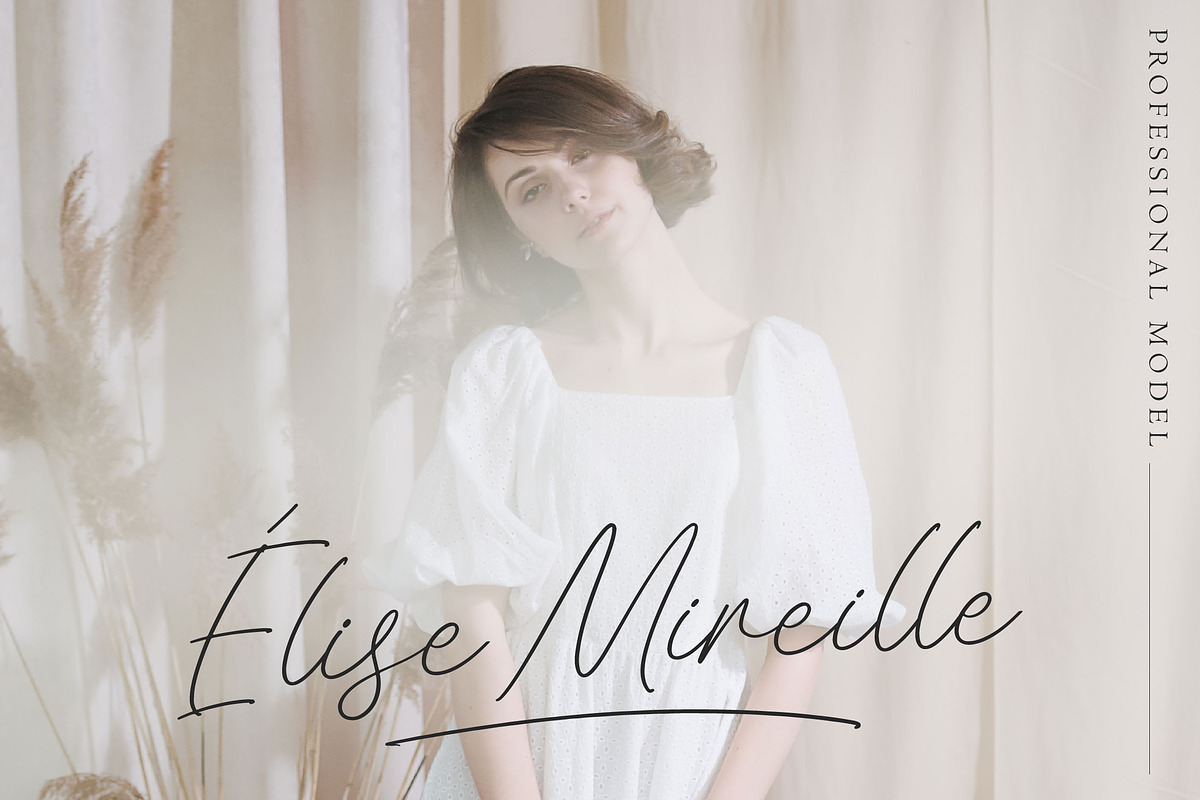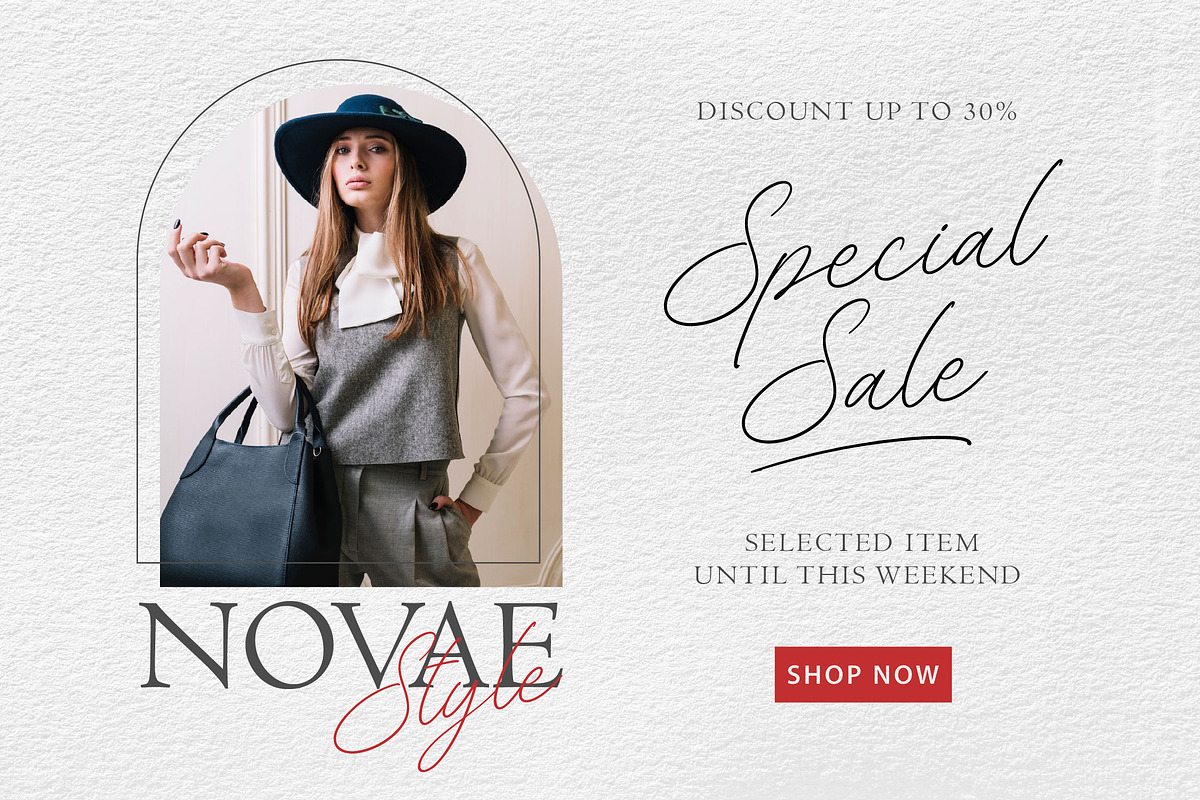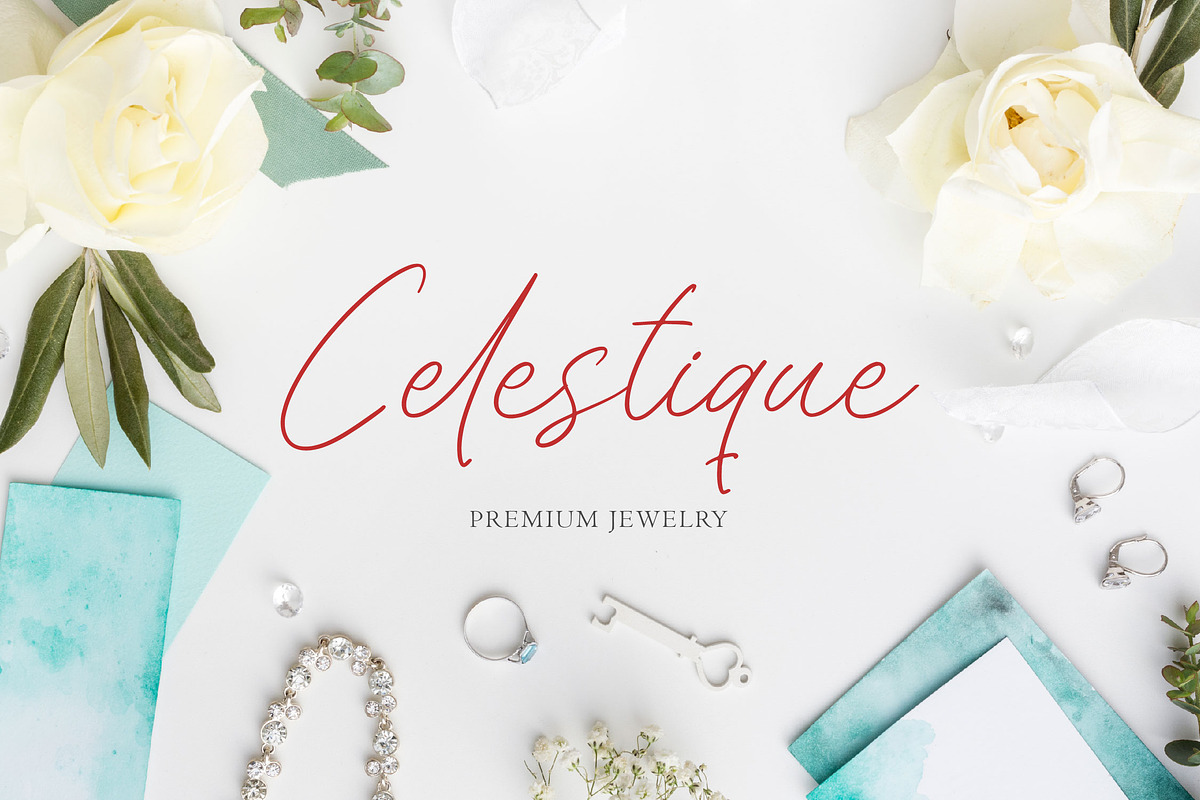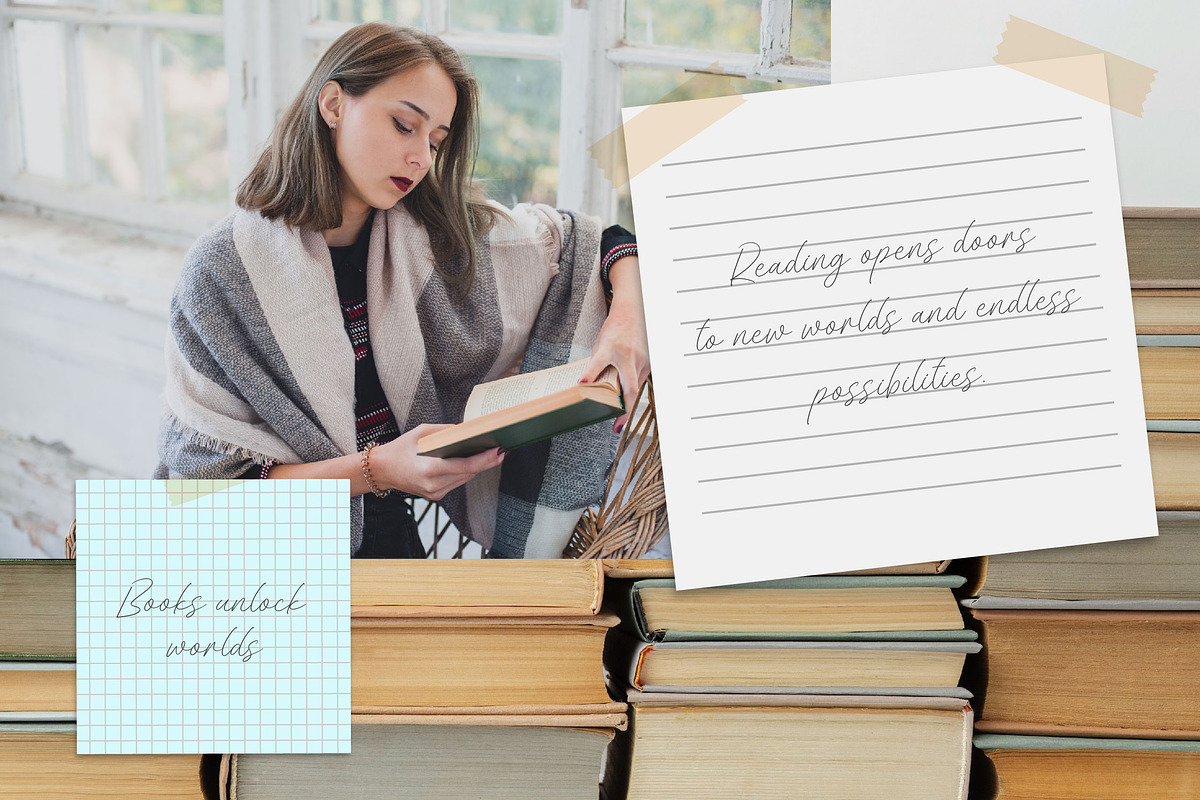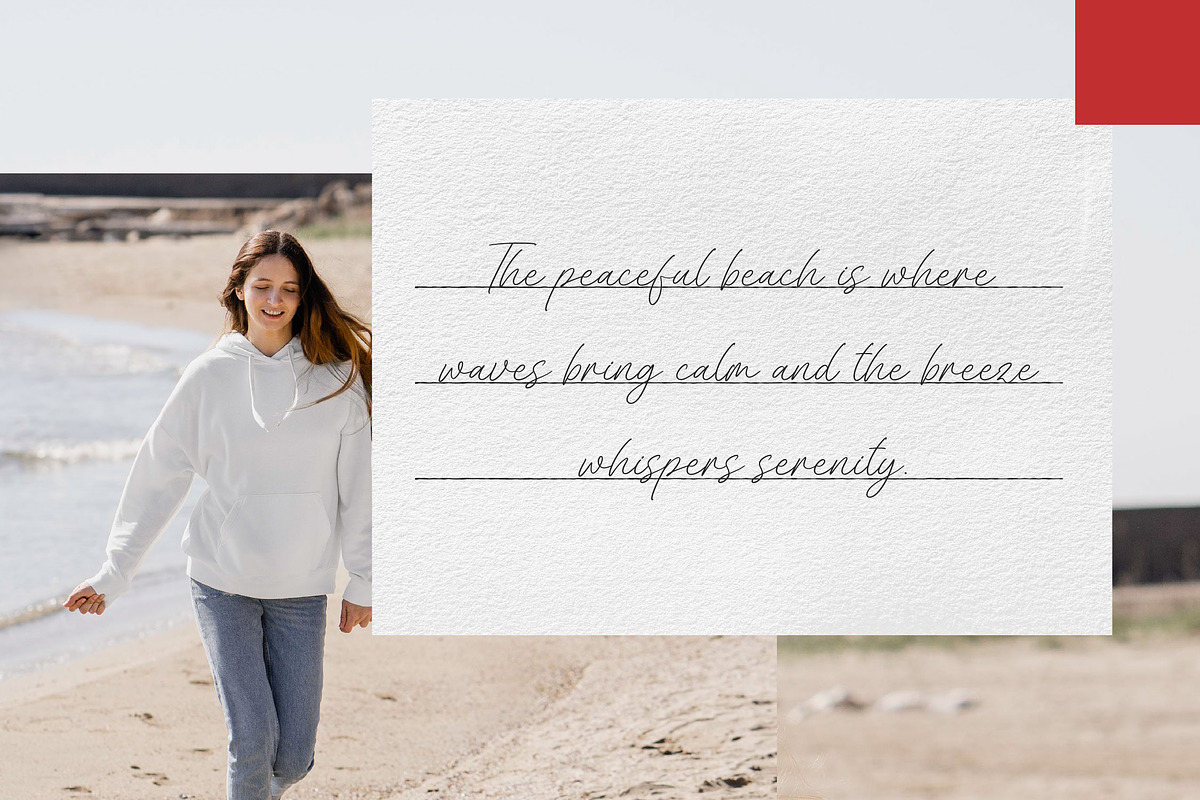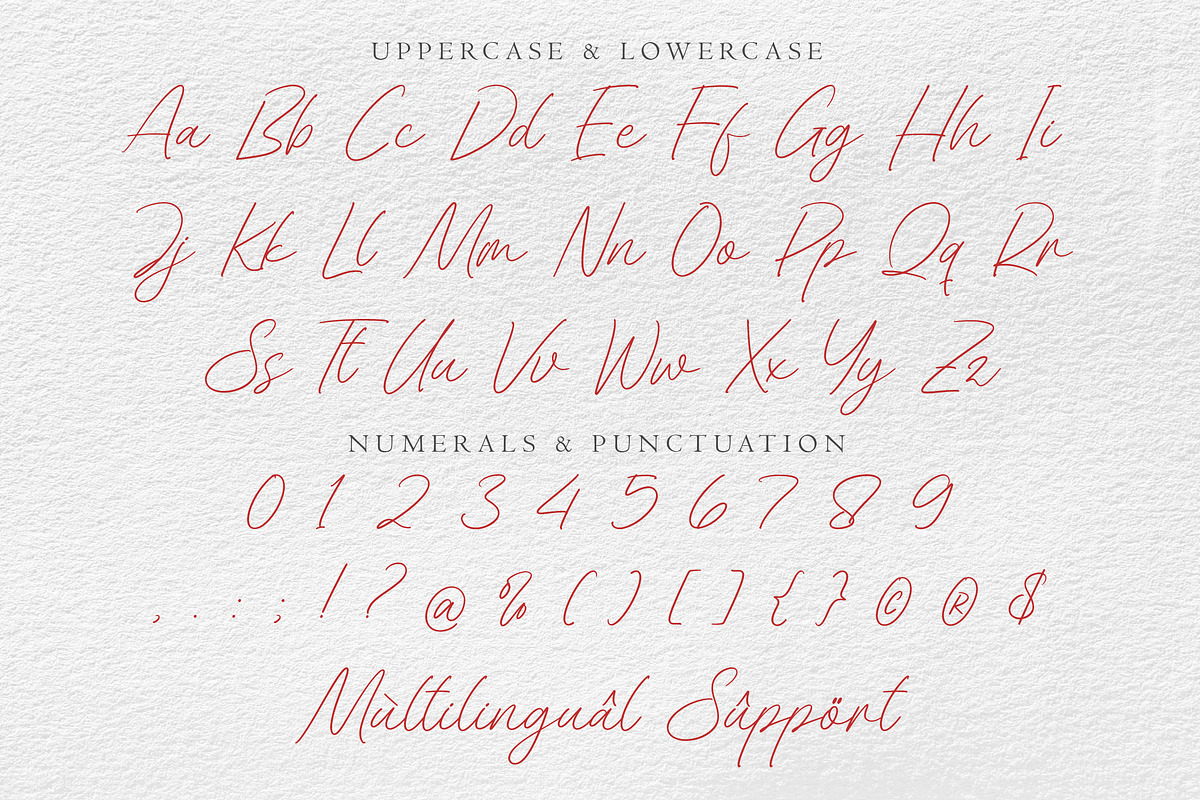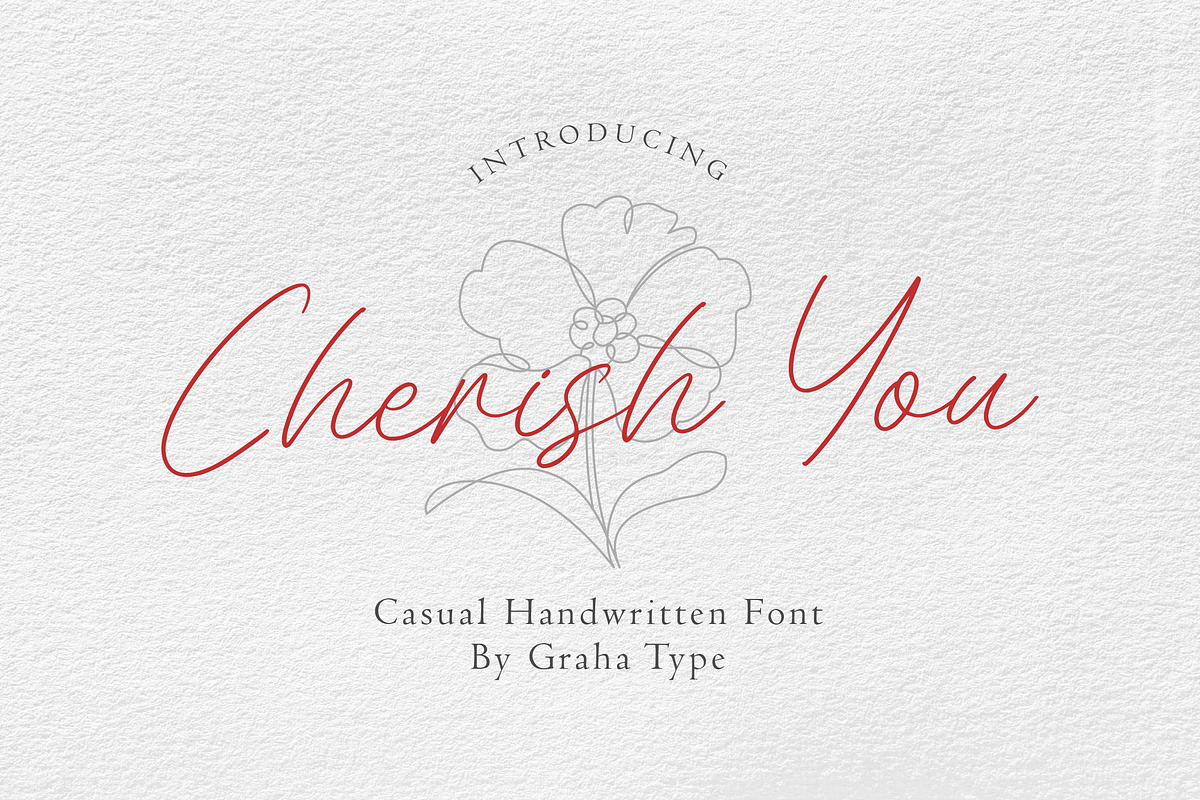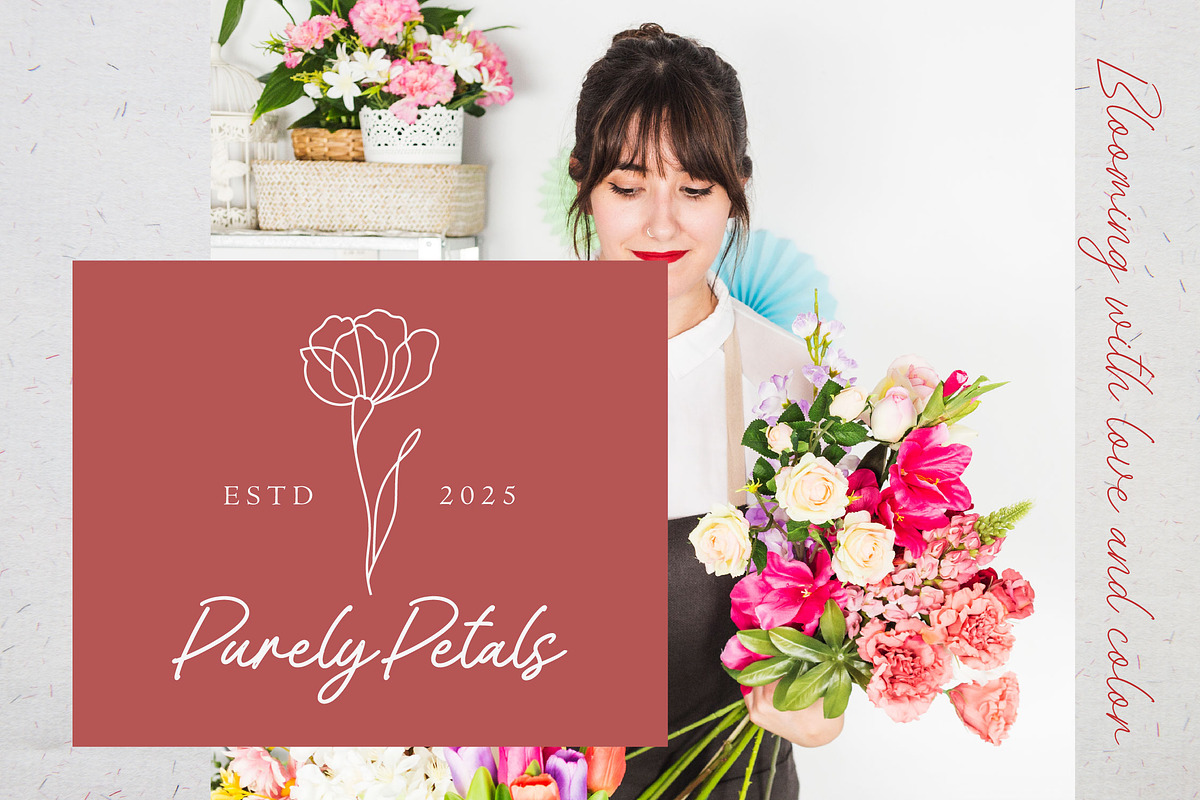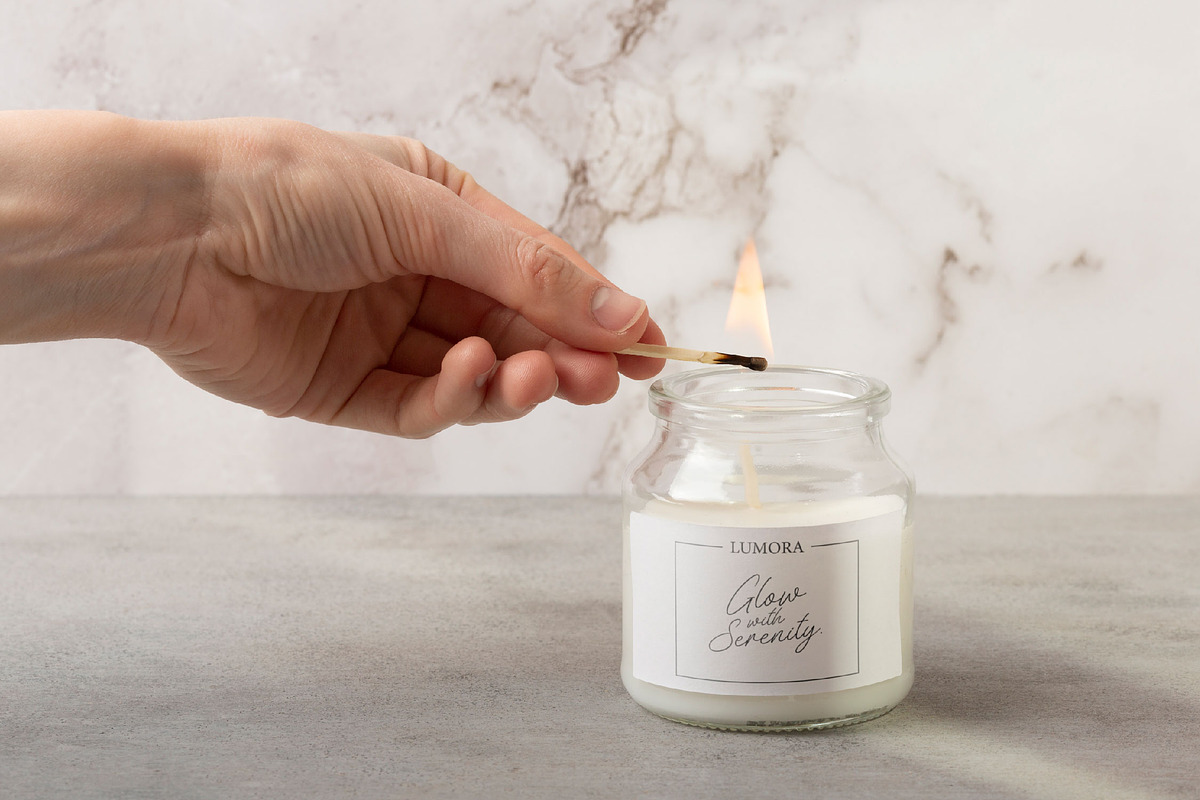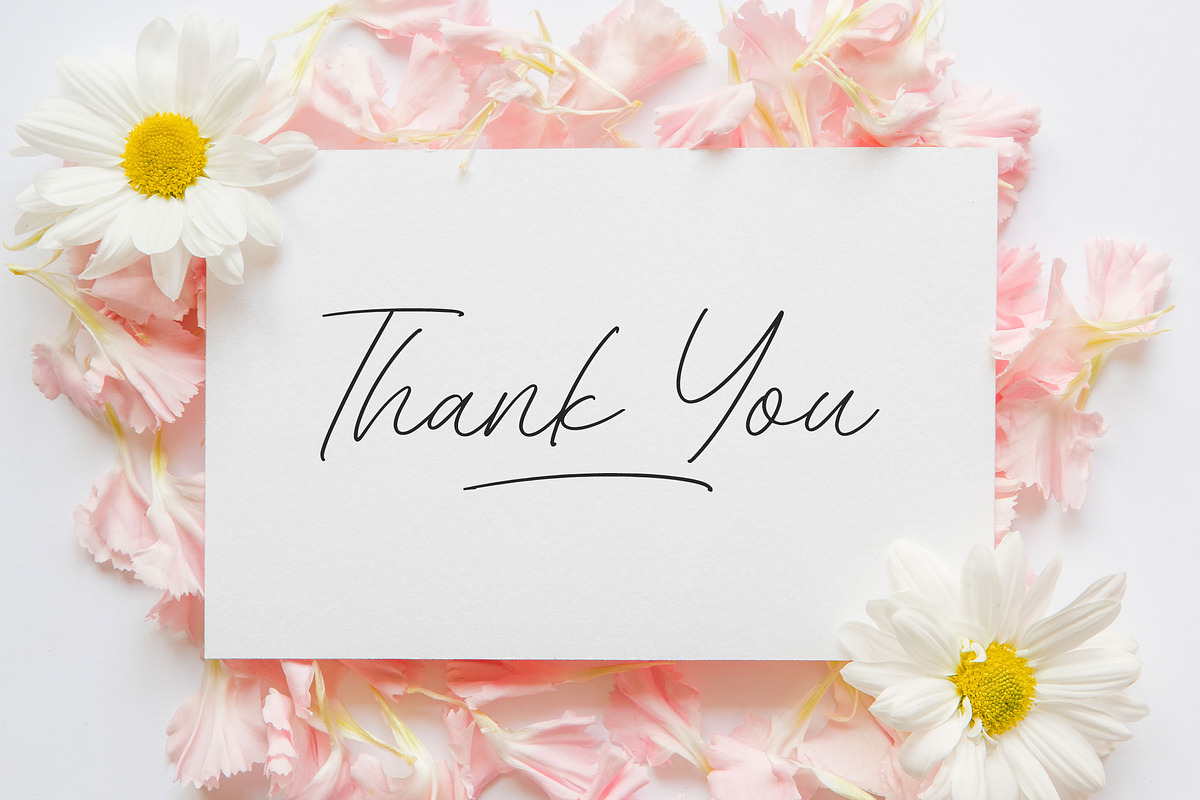
Cherish You - Casual Handwritten
Cherish You is a casual handwritten script font that exudes warmth and elegance, making it perfect for various design needs such as wedding invitations, logotypes, branding, packaging, and more. With its soft and natural hand-drawn strokes, this font adds a romantic and personal touch, creating a look that is both elegant and relaxed. Cherish You is an ideal choice for those seeking a timeless and sophisticated handwritten style, perfect for adding charm and beauty to any project.